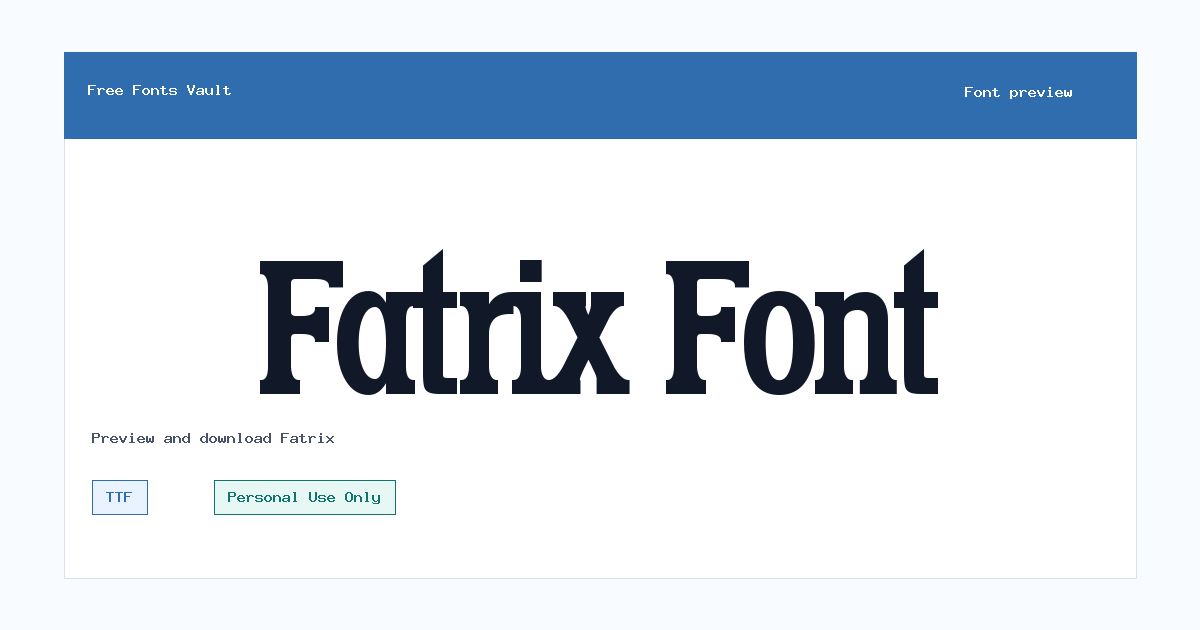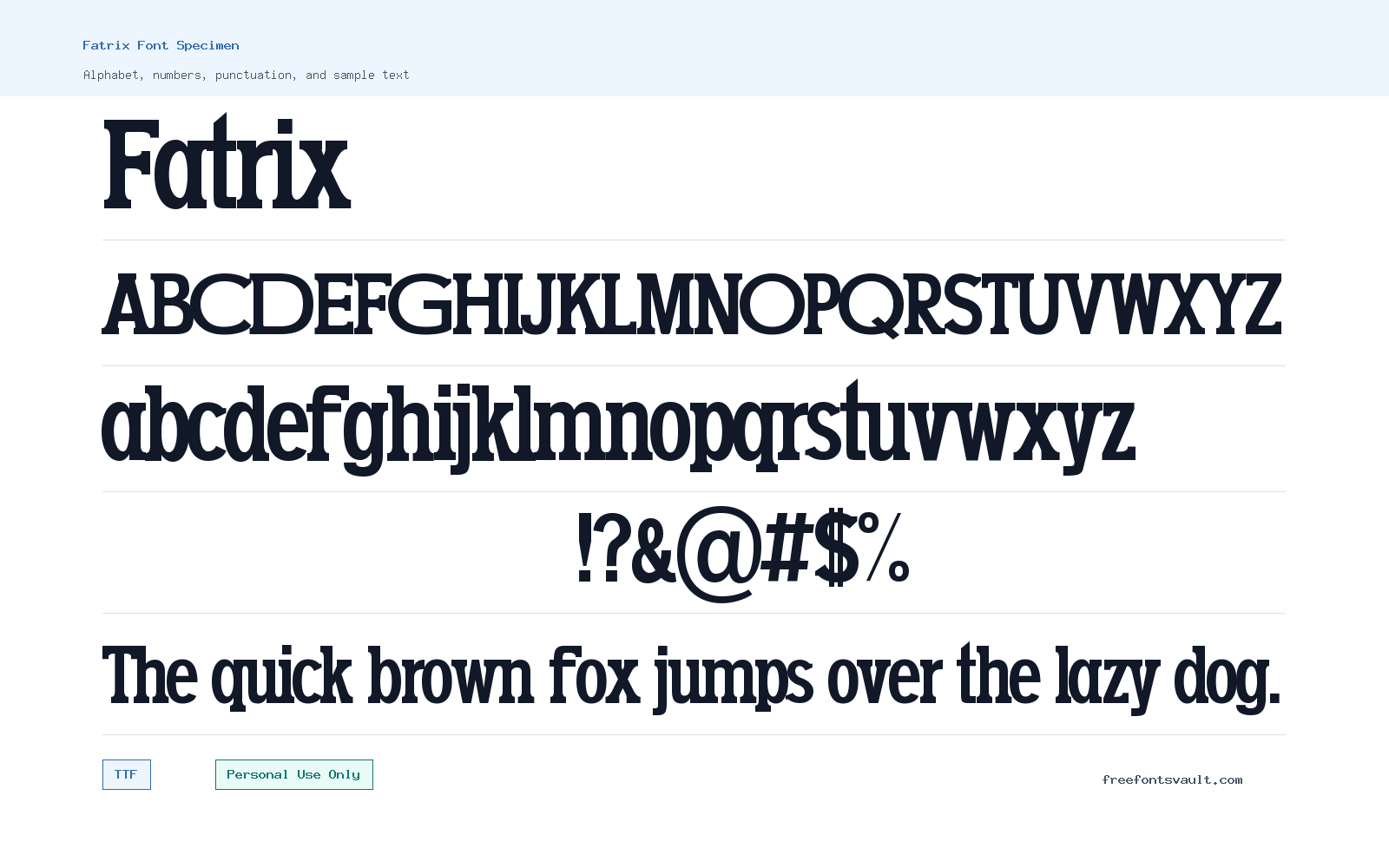
Fatrix
Fatrix font.
Fatrix is a slab serif display font with a firm, blocky presence. It works best when you need text that feels strong, structured, and easy to notice in a short headline or graphic.
About Fatrix Font
Fatrix comes as a regular TTF font with normal style and 400 weight. Its slab serif character gives letters a heavier, more grounded look than a plain sans serif, while the regular weight keeps it usable for clean display settings. Because the available style is a single regular cut, it is best to treat Fatrix as a focused headline font rather than a full text family. Use it where one strong voice is enough: a title, badge, poster heading, social image, label, or short brand-style mockup.
For the best result, test Fatrix in the live preview with the exact words you plan to use. Slab serifs can look bold and confident at larger sizes, but they may feel crowded if the text is too small or too long. Try it first in uppercase words, short phrases, and medium-length titles. If the letters feel tight, add a little tracking or increase the font size. For longer descriptions, pair Fatrix with a simpler sans serif or a quiet serif so the display text remains the focus without making the whole layout feel heavy.
- Slab serif display look suited to short, strong text settings
- Posters, banners, thumbnails, and social media graphics that need a bold title
- Logos, labels, badges, and personal design mockups where a sturdy slab serif style fits
Start by previewing your own title at a large size. Fatrix is more suitable for short display text than long paragraphs, so keep body copy in a more neutral companion font. A clean sans serif can make a practical pairing for descriptions, navigation, and smaller labels, while Fatrix handles the main headline. Check spacing around wide letters, test both uppercase and title case, and avoid using too many competing decorative fonts in the same layout.
What style of font is Fatrix?
Fatrix is presented as a slab serif font. It is best used for display text such as titles, posters, badges, and short graphic text.
Can I use Fatrix for body text?
It is better for short display use. For paragraphs or small text, pair it with a simpler, more readable font and keep Fatrix for headings.